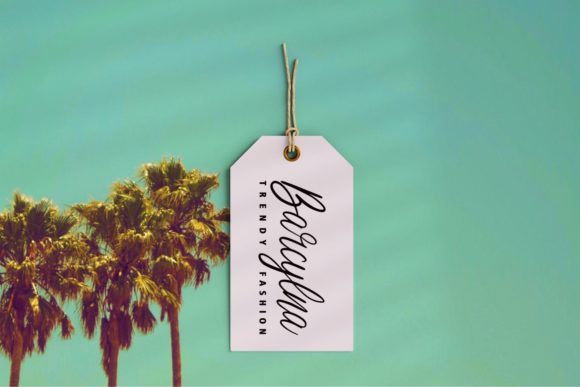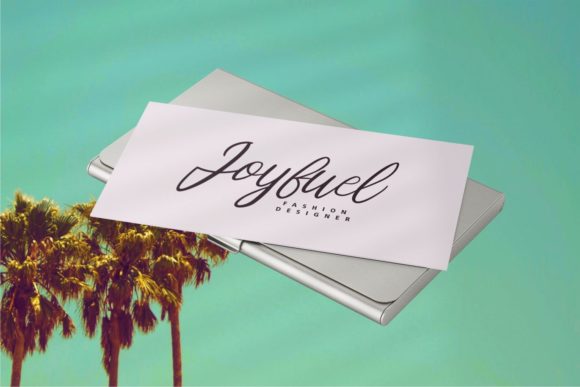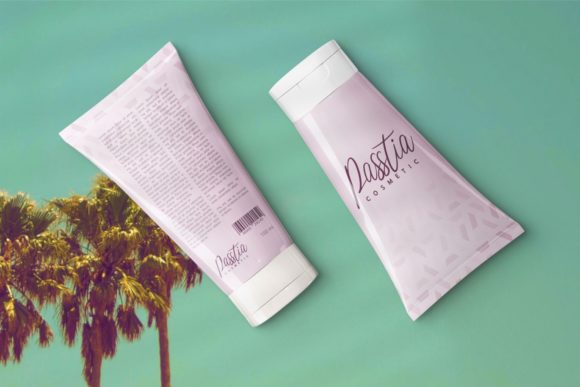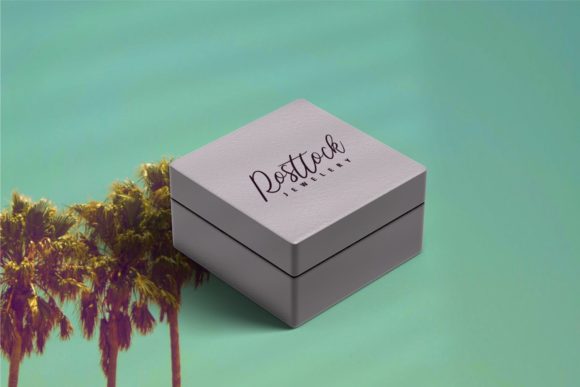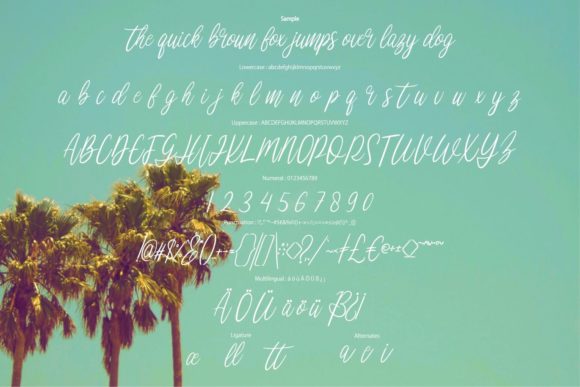
Introduction to Antalana Font
Antalana is a splendid handwritten font that looks so natural and authentic.
It is the perfect choice for creative projects that need a personal note .
Antalana Font offers exceptional quality and versatility, making it a valuable addition to your design toolkit. Whether you’re creating for personal projects or commercial use, Antalana Font delivers professional results.